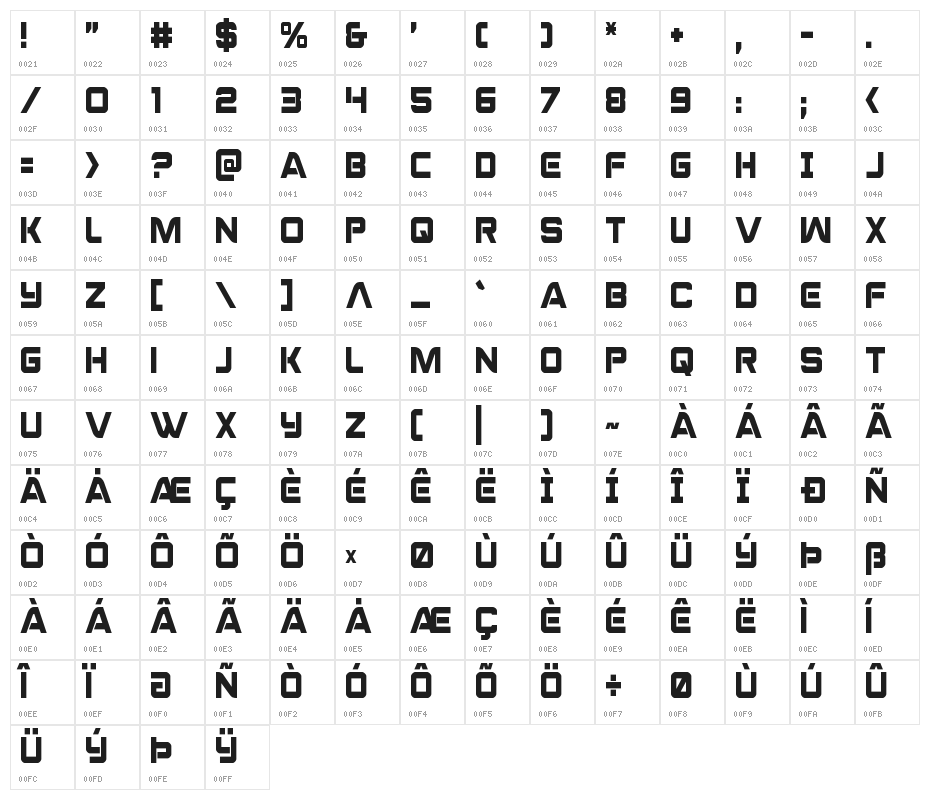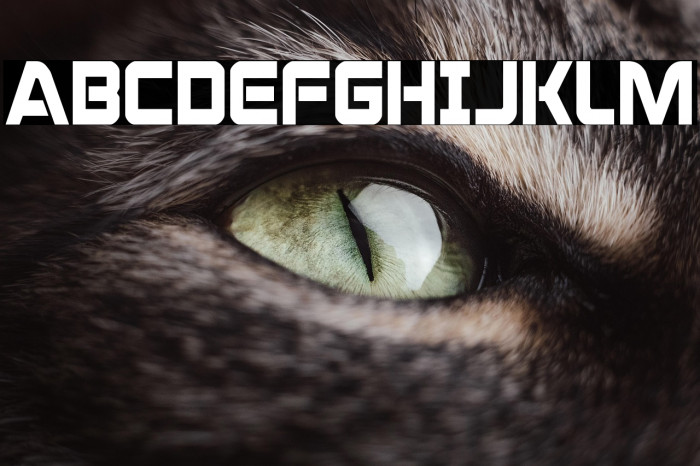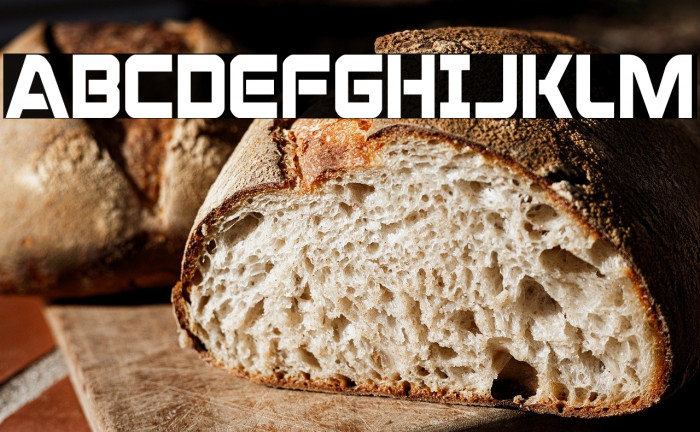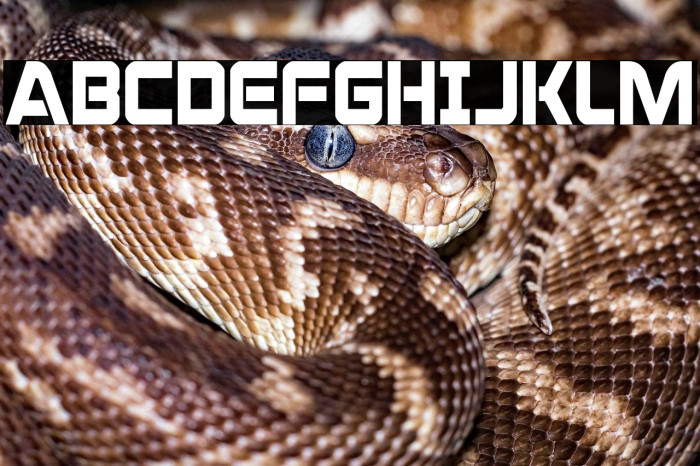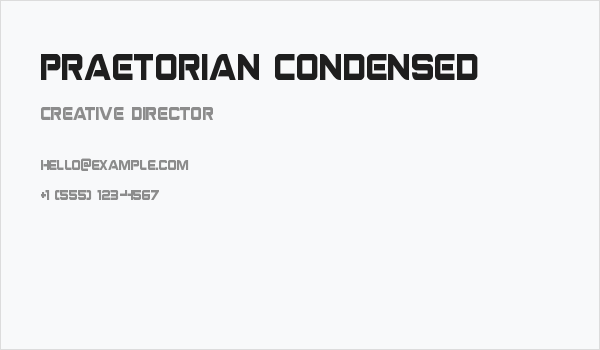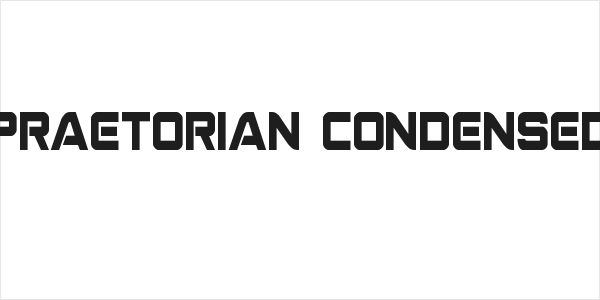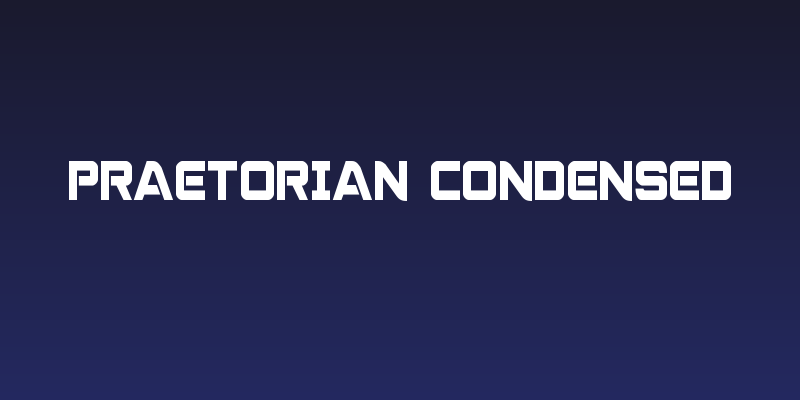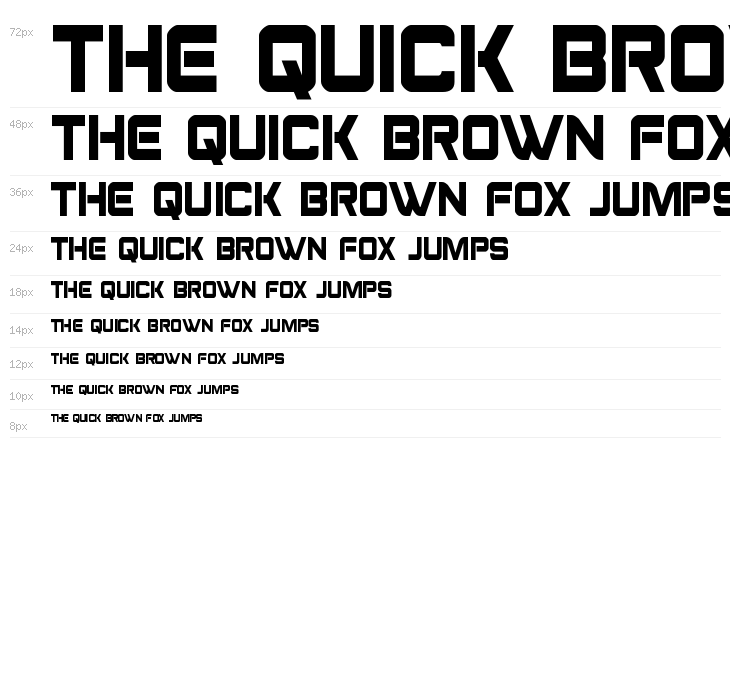
Praetorian Condensed Font
Praetorian Condensed Description
This font features a bold, geometric design with a strong presence. The characters are sharply defined with angular cuts, giving it a futuristic and industrial feel. The condensed style allows for efficient use of space, making it suitable for impactful headlines and titles. The uniform stroke width across characters provides a cohesive look, while the angular elements add a touch of uniqueness. The font maintains a consistent height across uppercase, lowercase, and numerical characters, ensuring readability and balance. Special characters are designed with the same bold and angular style, integrating seamlessly with the overall aesthetic.
| Proposed Projects | Ideal for use in branding, posters, and signage where a strong, modern impact is desired. |